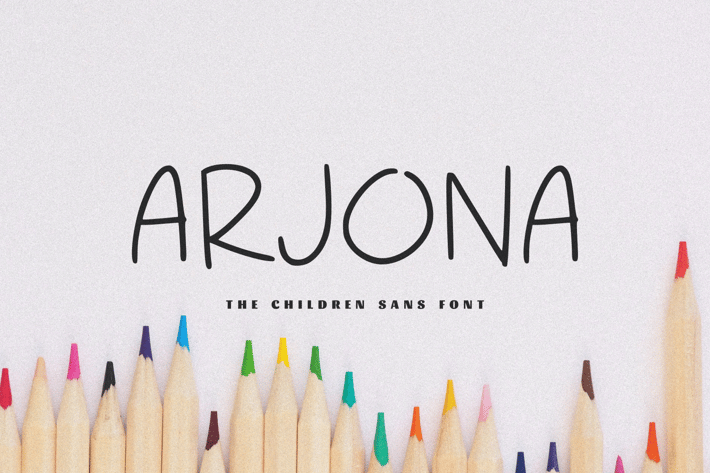
Arjona - The Children Sans Font
Arjona - The Children Sans Font, every single letter has been carefully crafted to make your text looks beautiful. it's perfect for logos, name cards, magazine layouts, invitations, headers, or even large-scale artwork.